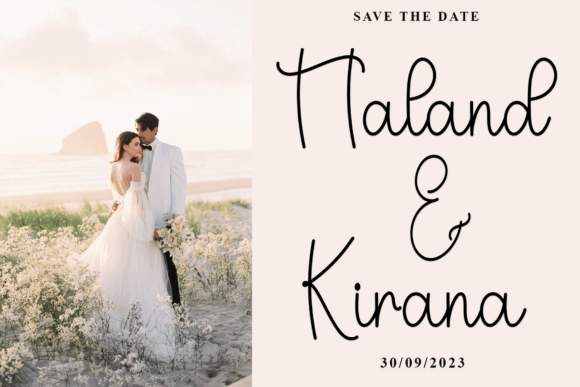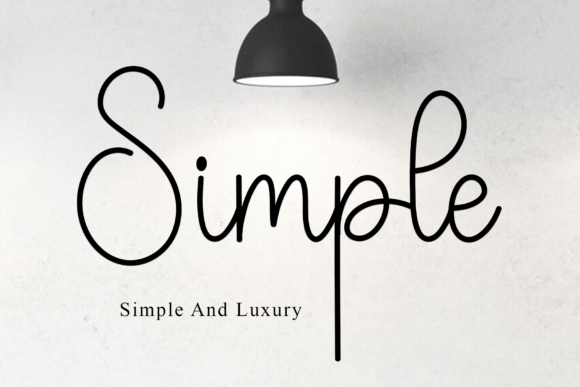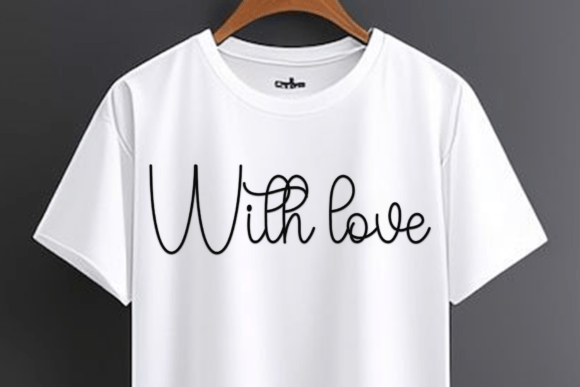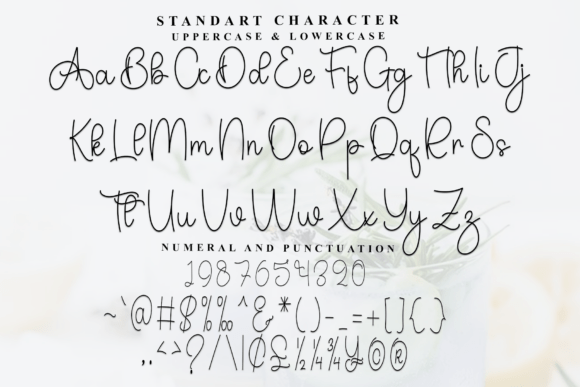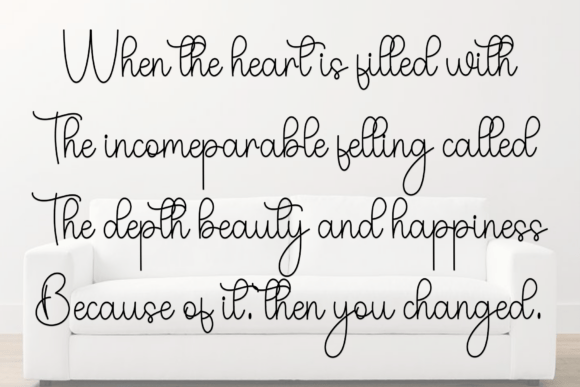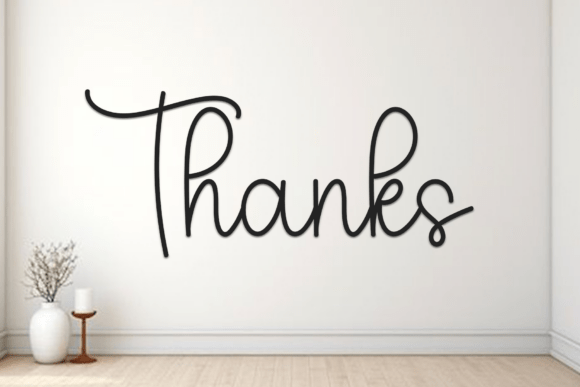
Introducing Daylight Font: A Timeless Handwritten Delight
Are you a designer or crafter looking for a font that can add a touch of elegance and sophistication to your creative projects? Look no further than Daylight Font, a lovely and timeless handwritten font that is sure to make your designs come alive!
What Makes Daylight Font Special?
Daylight Font is a unique and beautiful handwritten font that is perfect for creating eye-catching logos, branding, and quotes. Every letter has a distinctive and lovely touch, which sets it apart from other fonts. The font’s classic and timeless feel makes it suitable for a wide range of design projects, from modern and trendy to vintage and rustic.
As a designer or crafter, you know how important it is to choose the right font for your project. Daylight Font is an excellent choice for anyone looking to add a personal touch to their designs. Whether you’re creating a logo, branding materials, or social media graphics, this font is sure to impress. Its unique and beautiful lettering will make your designs stand out from the crowd and leave a lasting impression on your audience.
Key Features of Daylight Font
- Timeless and classic feel: Daylight Font has a timeless and classic feel that will never go out of style.
- Unique and beautiful lettering: Every letter has a distinctive and lovely touch that sets it apart from other fonts.
- Perfect for logos and branding: Daylight Font is ideal for creating eye-catching logos and branding materials that will make your business stand out.
- Suitable for a wide range of design projects: From modern and trendy to vintage and rustic, Daylight Font is suitable for a wide range of design projects.
Tips and Tricks for Getting the Most Out of Daylight Font
- Experiment with different font sizes: Daylight Font looks great in a variety of font sizes, from large and bold to small and delicate.
- Pair it with other fonts: Try pairing Daylight Font with other fonts to create a unique and eye-catching combination.
- Use it for headings and titles: Daylight Font is perfect for headings and titles, where its bold and eye-catching lettering can really shine.
In conclusion, Daylight Font is a lovely and timeless handwritten font that is perfect for designers and crafters looking to add a touch of elegance and sophistication to their creative projects. Its unique and beautiful lettering, classic and timeless feel, and suitability for a wide range of design projects make it an excellent choice for anyone looking to create eye-catching logos, branding, and quotes.